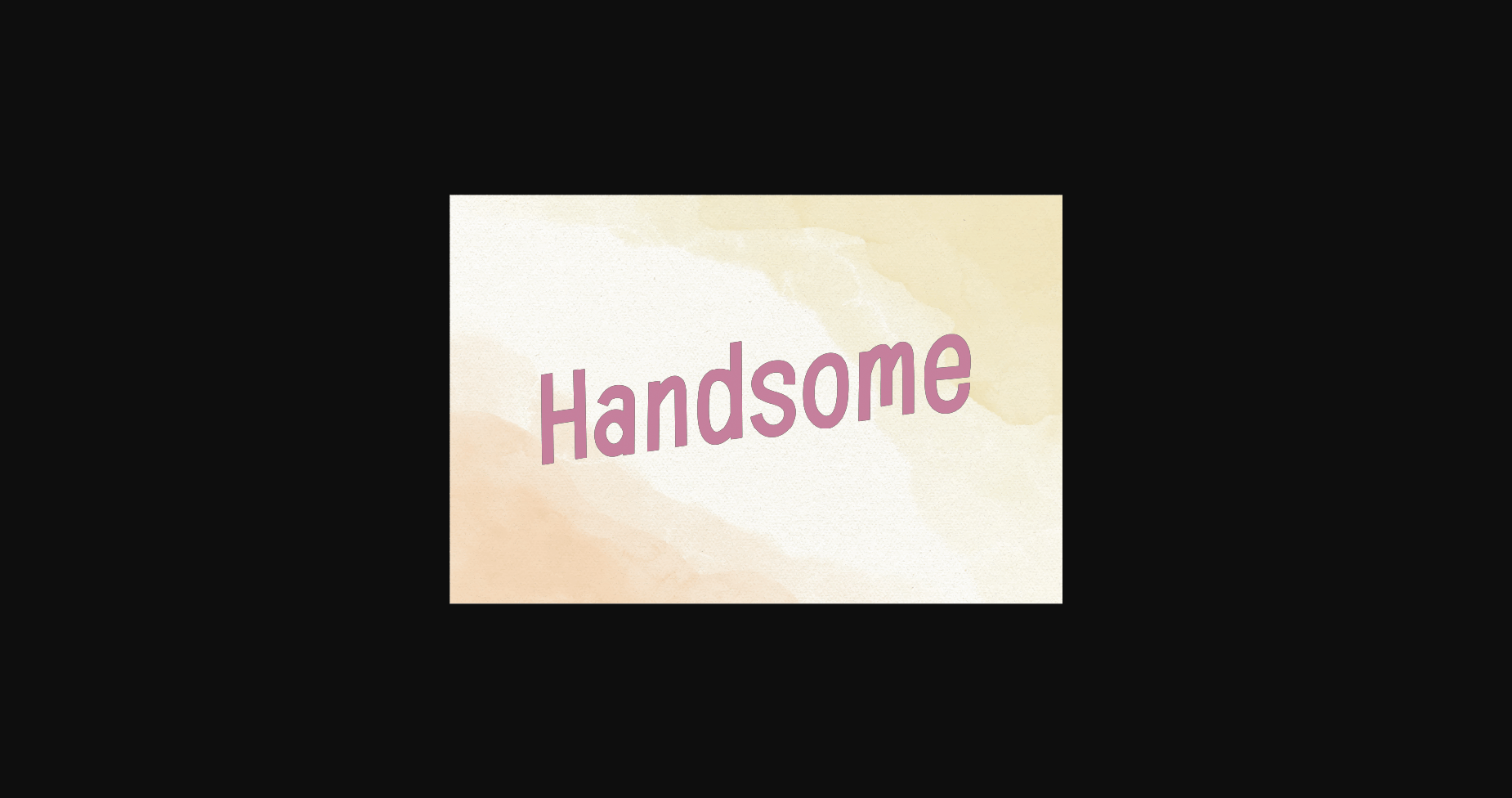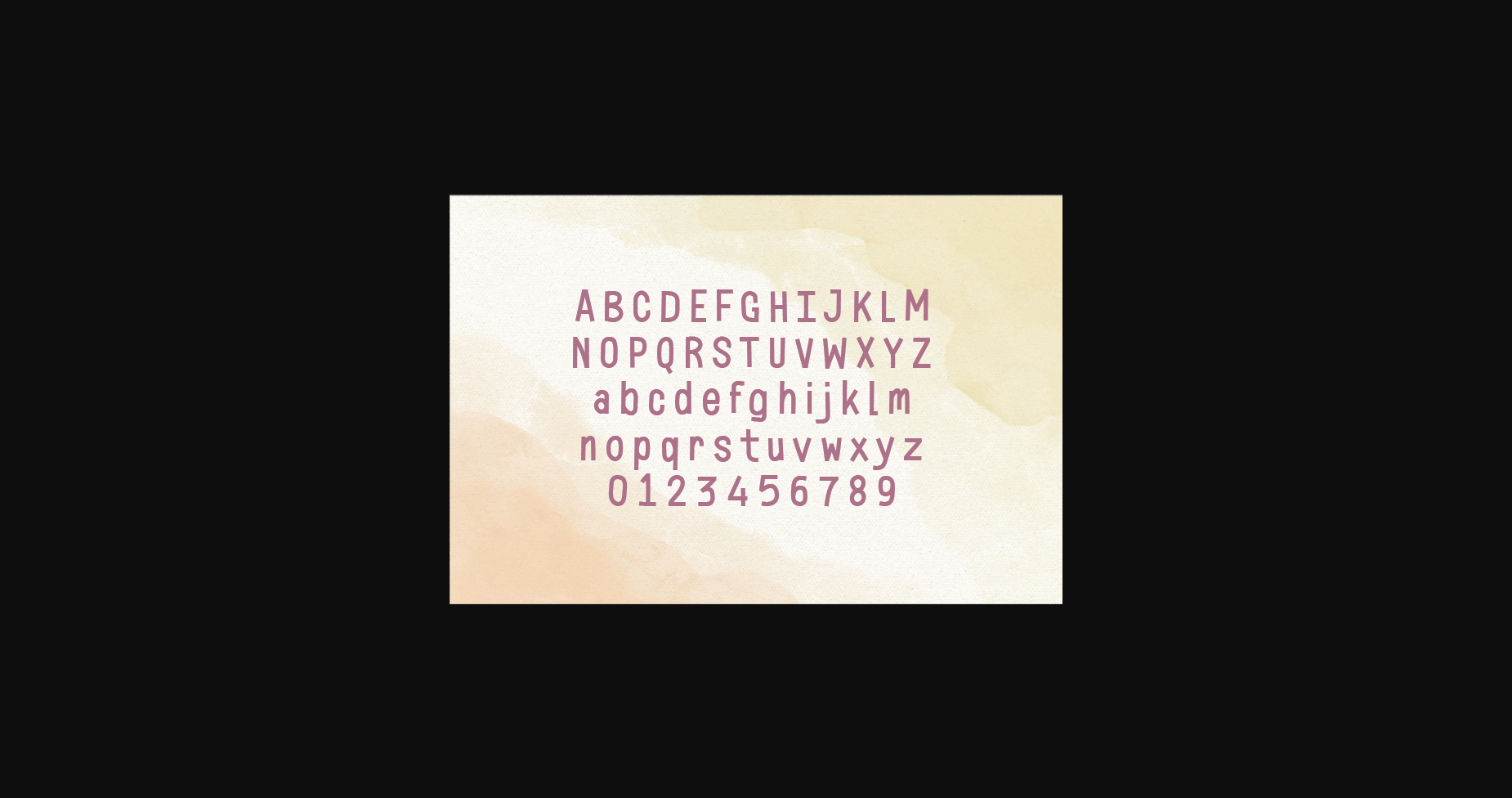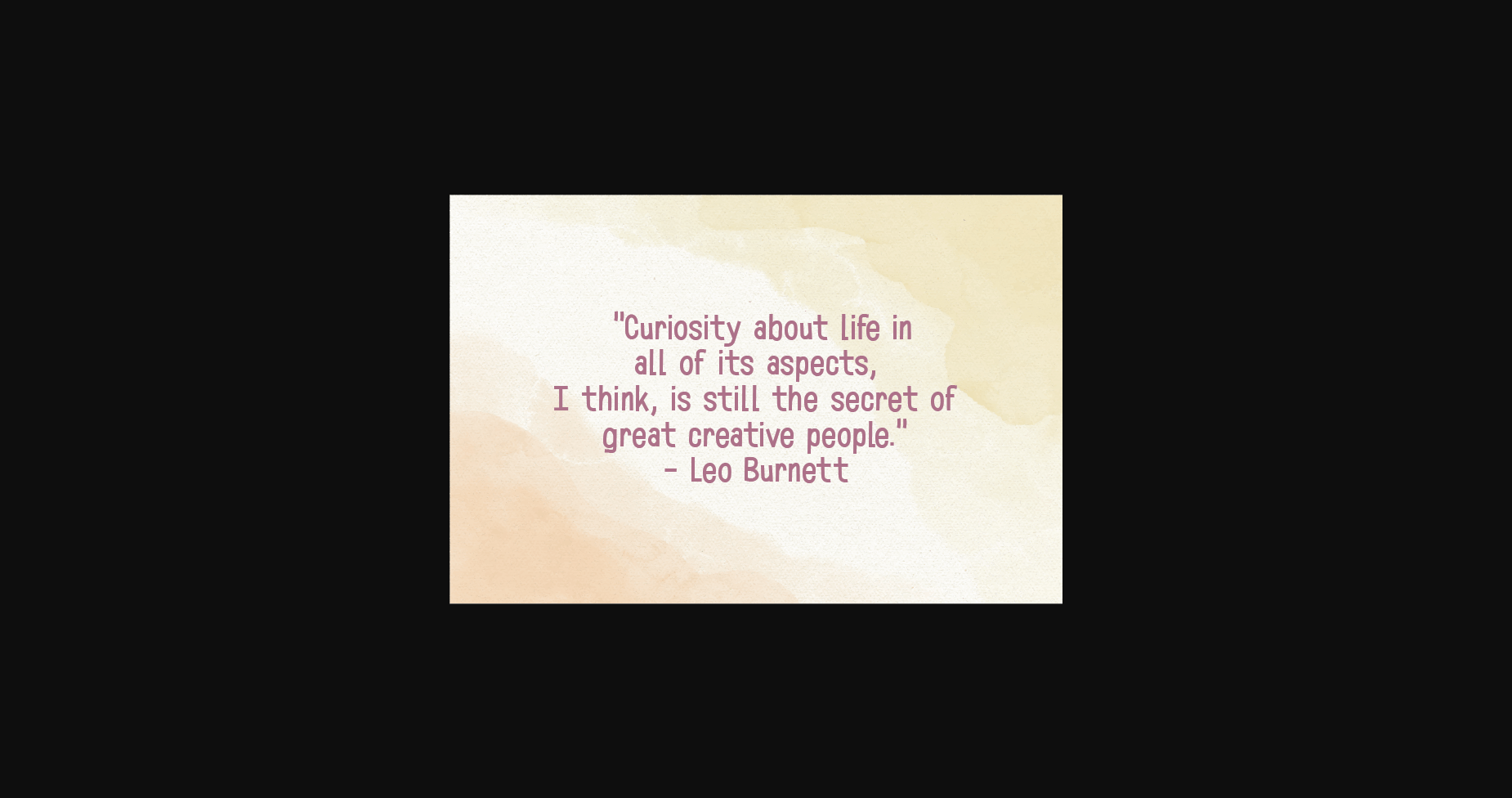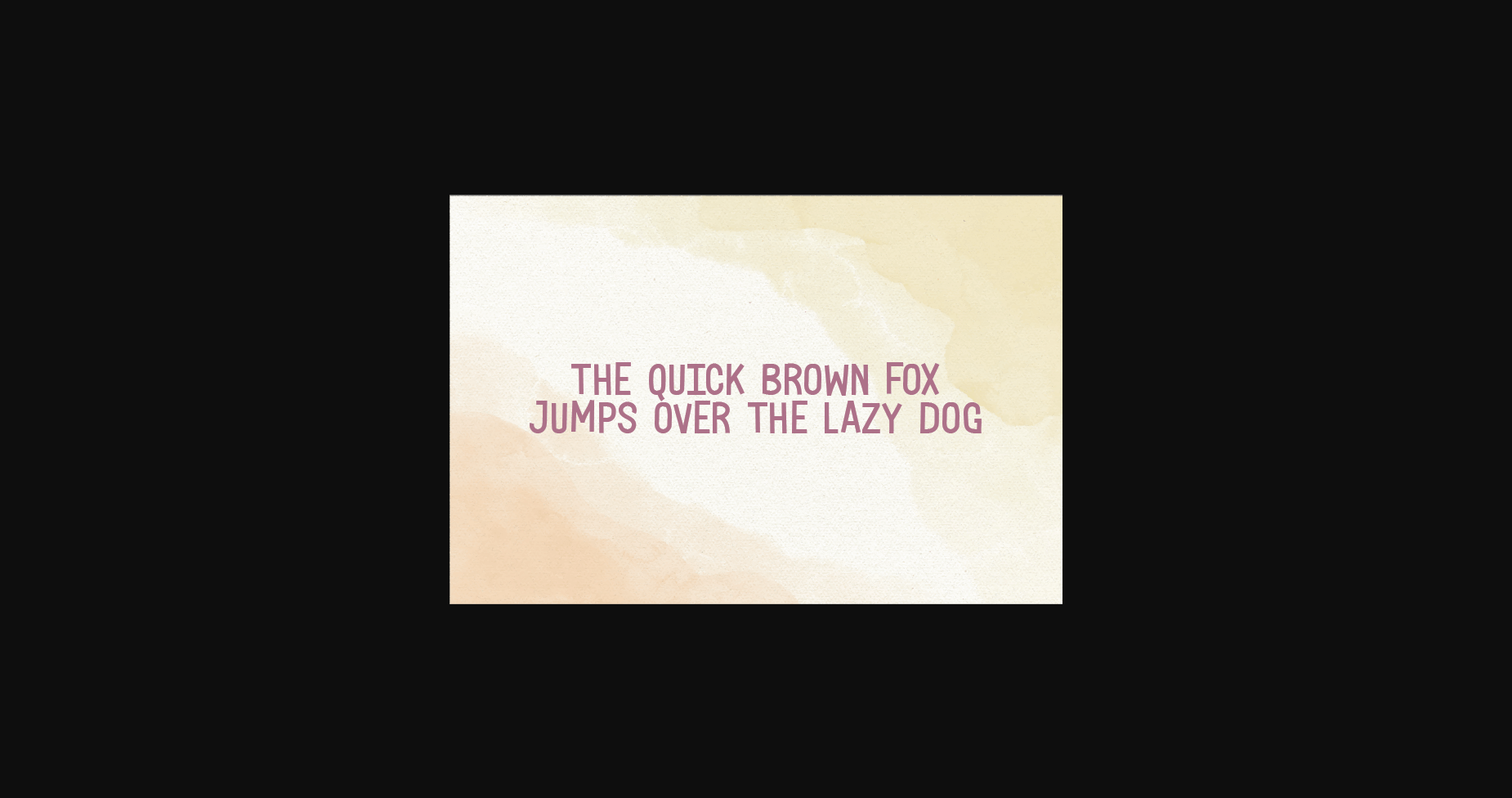
Handsome is an interesting and unique sans serif font perfect for quotes, notes, T-shirts, and many more. Fall in love with its incredibly versatile style, and use it to create spectacular designs!